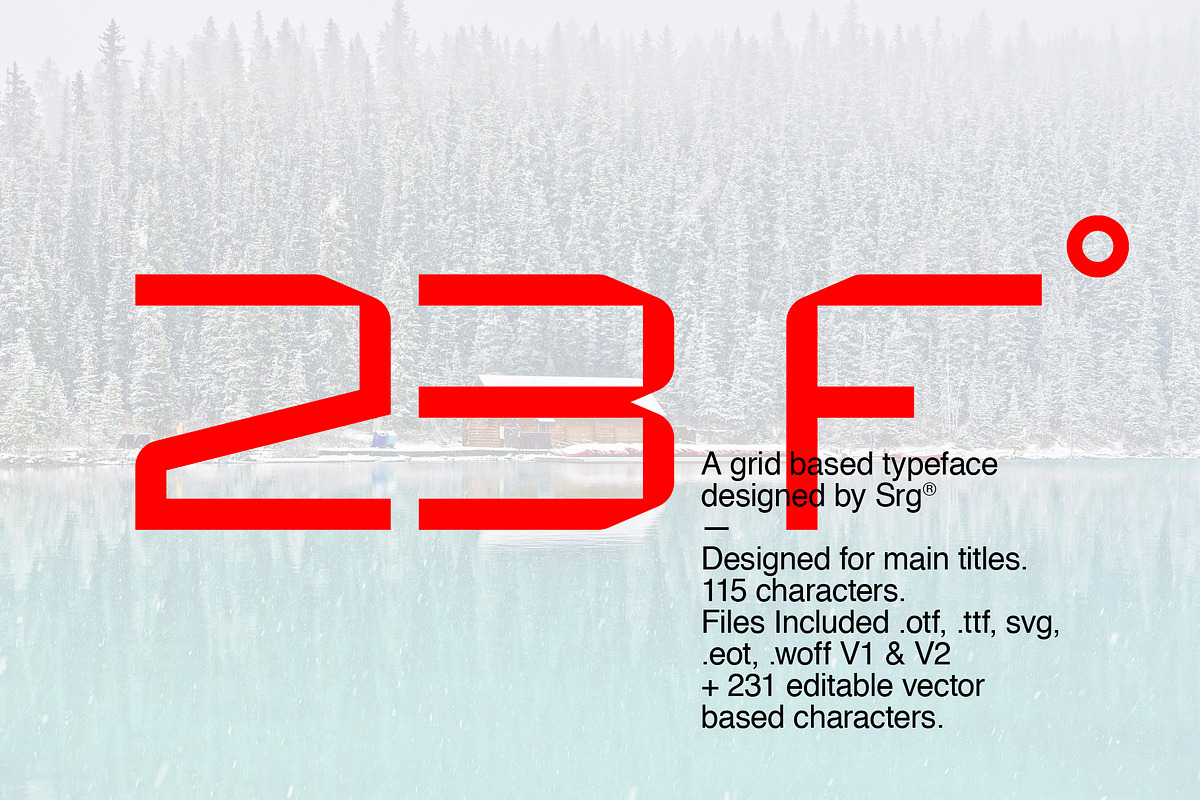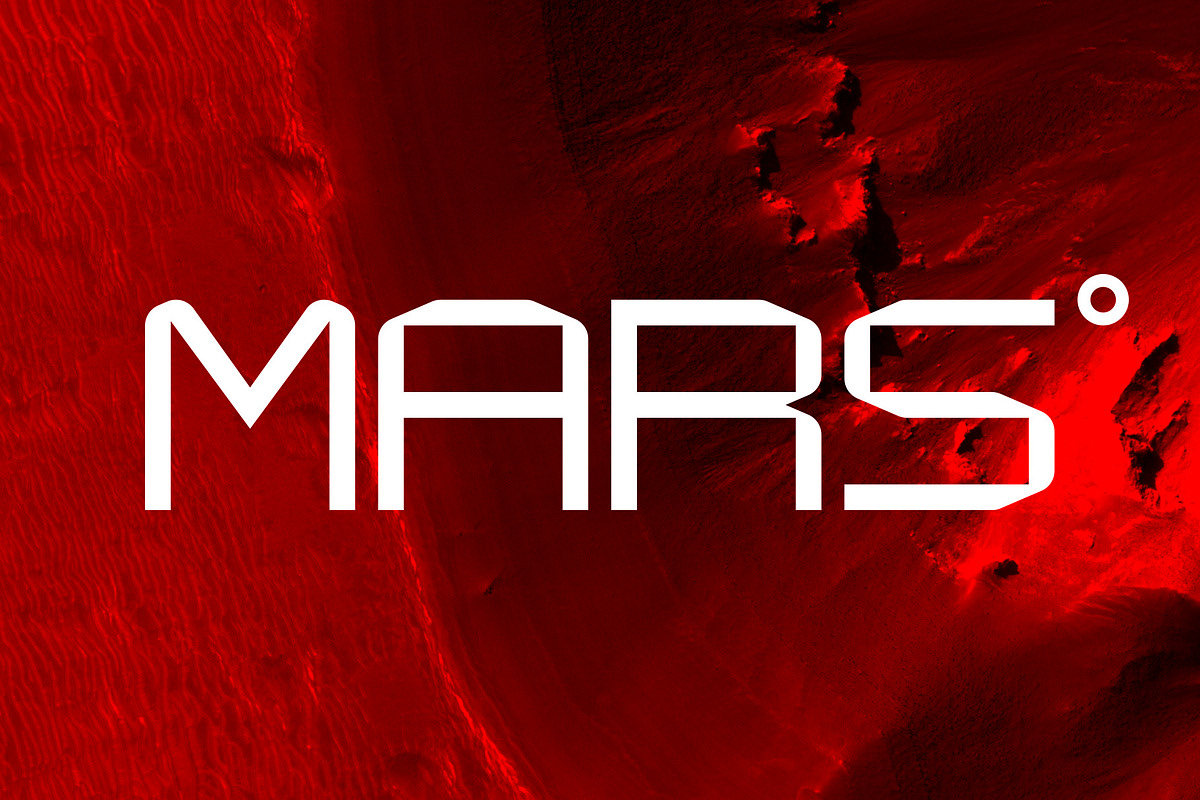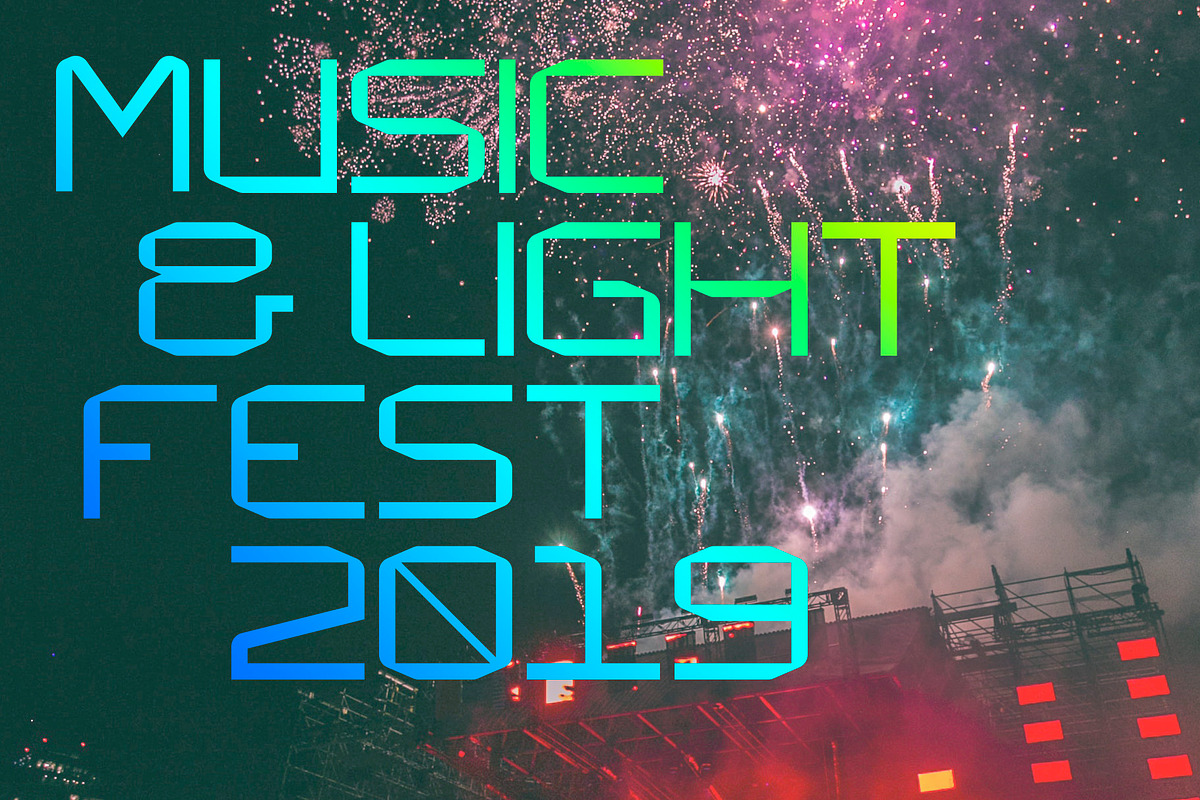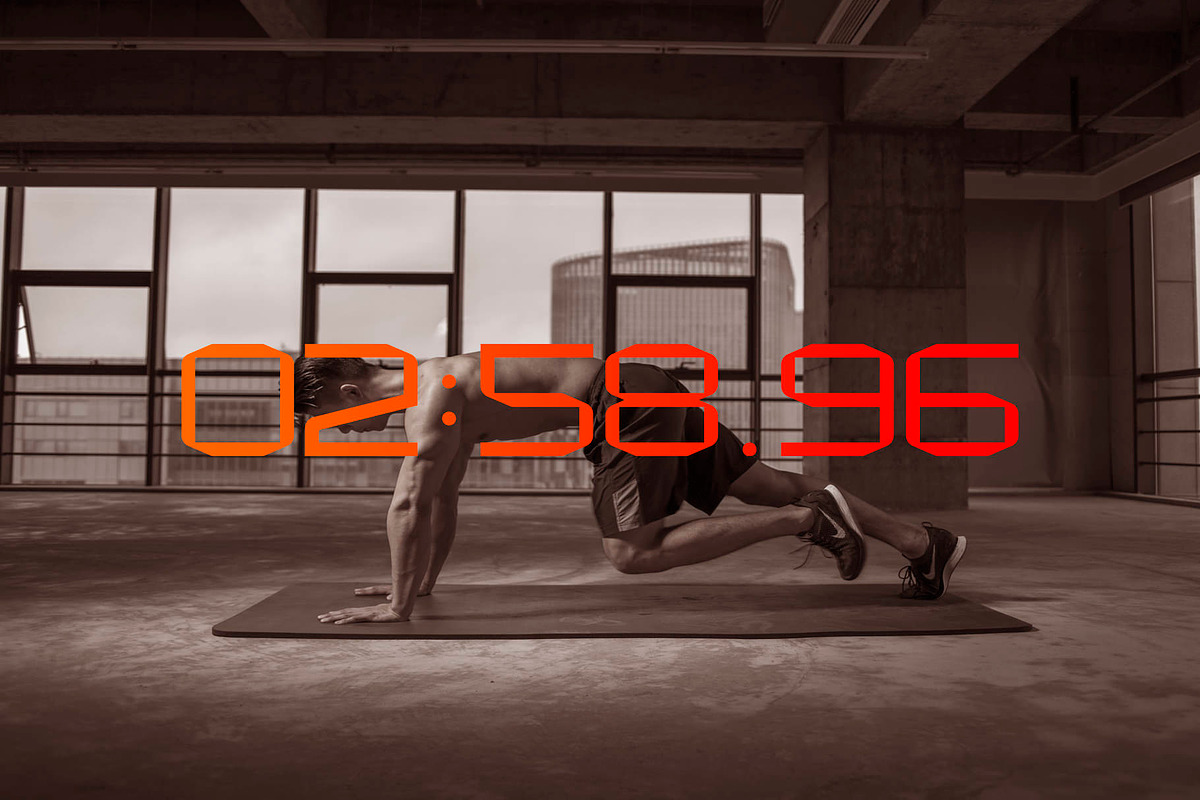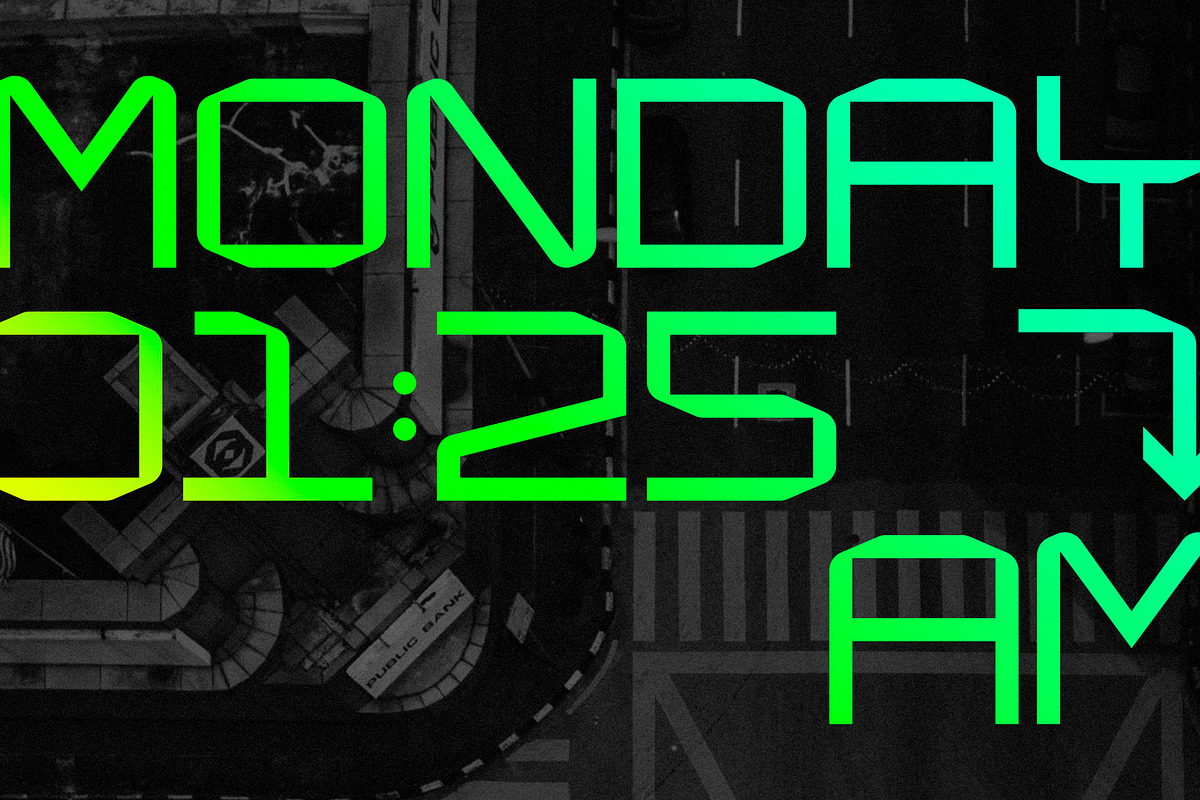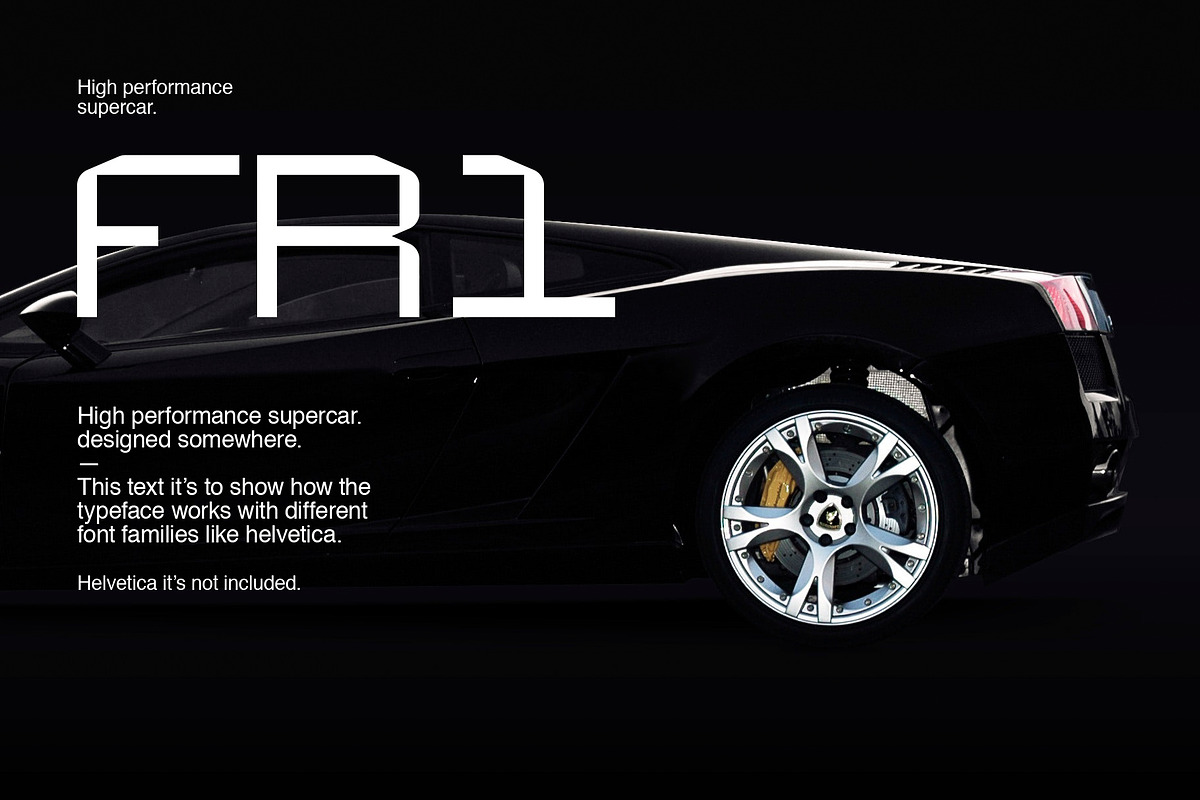
23F-Grid based font
23F-Grid based vector font
· Minimal vector linear font designed with a futurist and modernist feeling, better suited for short text and titles.
23F-Grid based font by Srg® fits naturally into Branding, posters, packaging, typography.